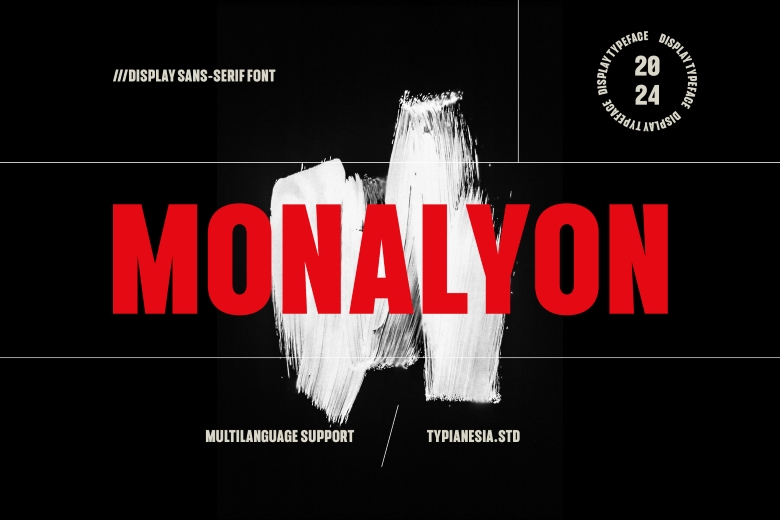
Monalyon Font
Monalyon is a display sans serif font which is modern and clean; the font is intricate with solid forms. It also makes for a great option in projects which require an immediate and assertive graphic appeal. Designed for viewing exclusively, Monalyon is suitable for headlines, banners, logos, brands, website headers and titles, printed works, online and offline ads, cover designs, restaurant menus, social networks, companies’ presentations, commercial events, applications, and any other project where a sans-serif font will ensure a clear and contemporary.
Monalyon Sans Serif Font